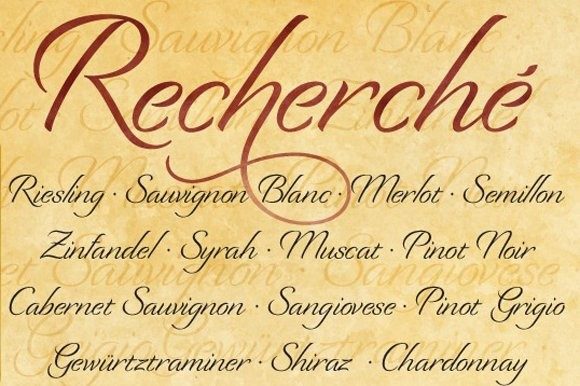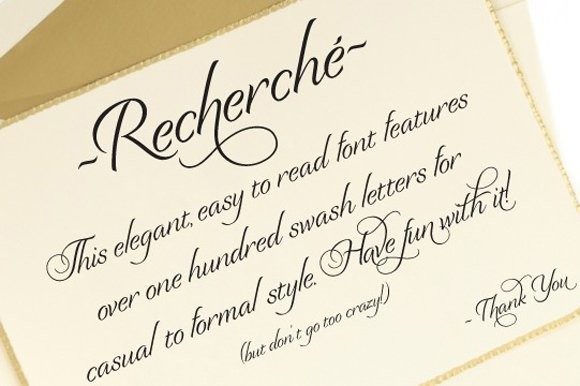
Recherche Font
db-ku.com - Script & Handwritten -- Recherche means “studied refinement or elegance” — and suits this typeface perfectly. Based on letters from a pointed brush, its long, arcing verticals and open-ovaled counters convey airy sophistication. Recherche is packed with swashy alternates, making it easy to create unique settings and wordmarks for menus, wine labels, wedding invitations, and the like.